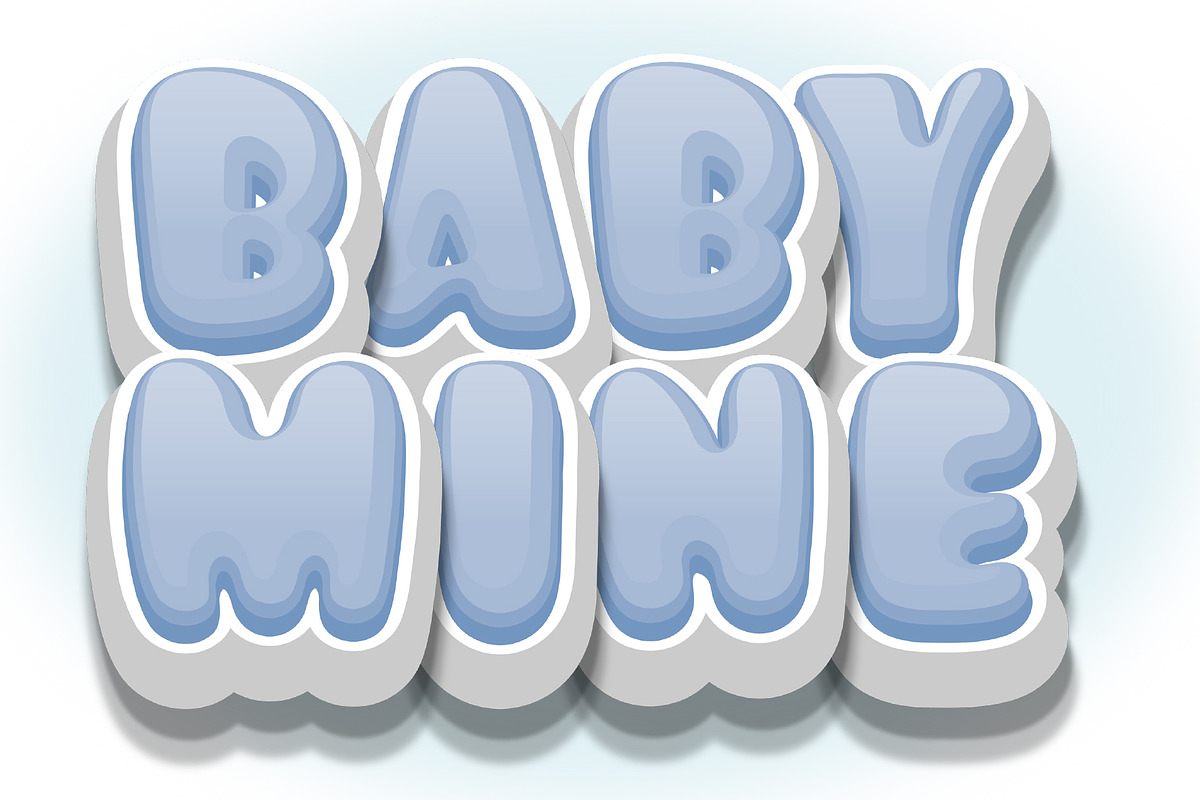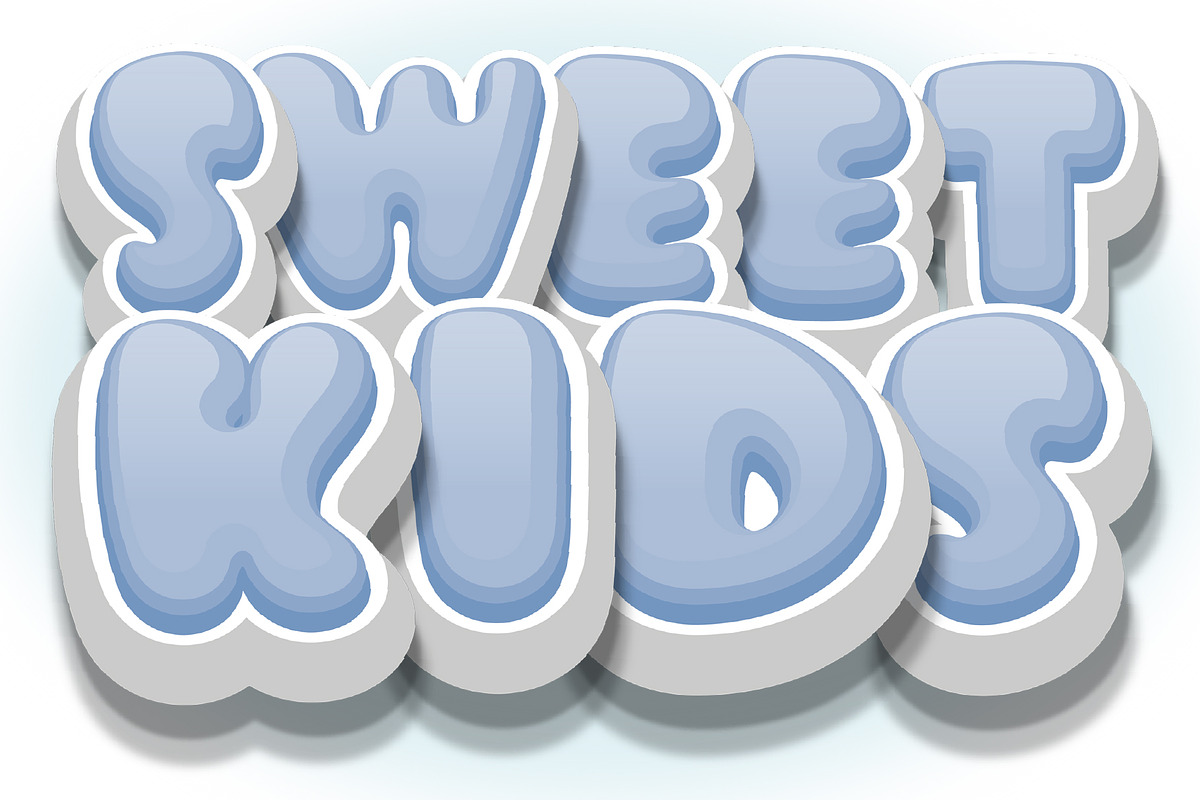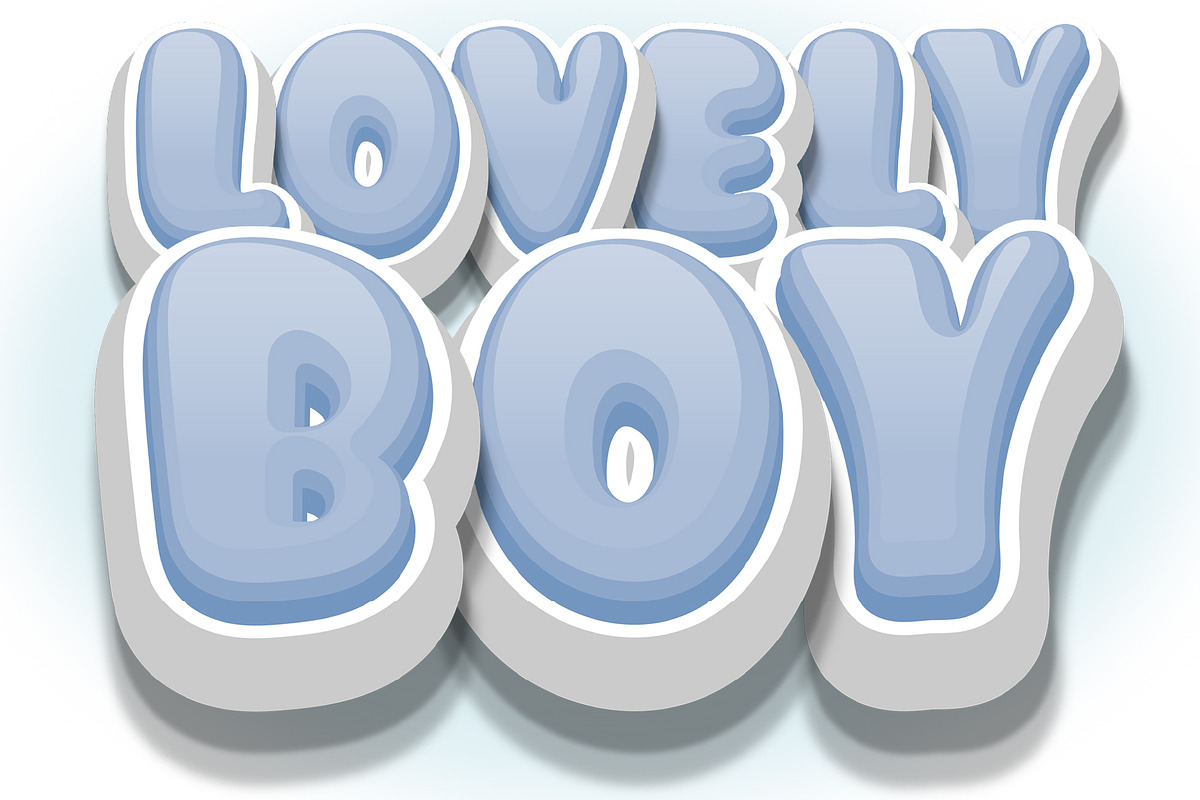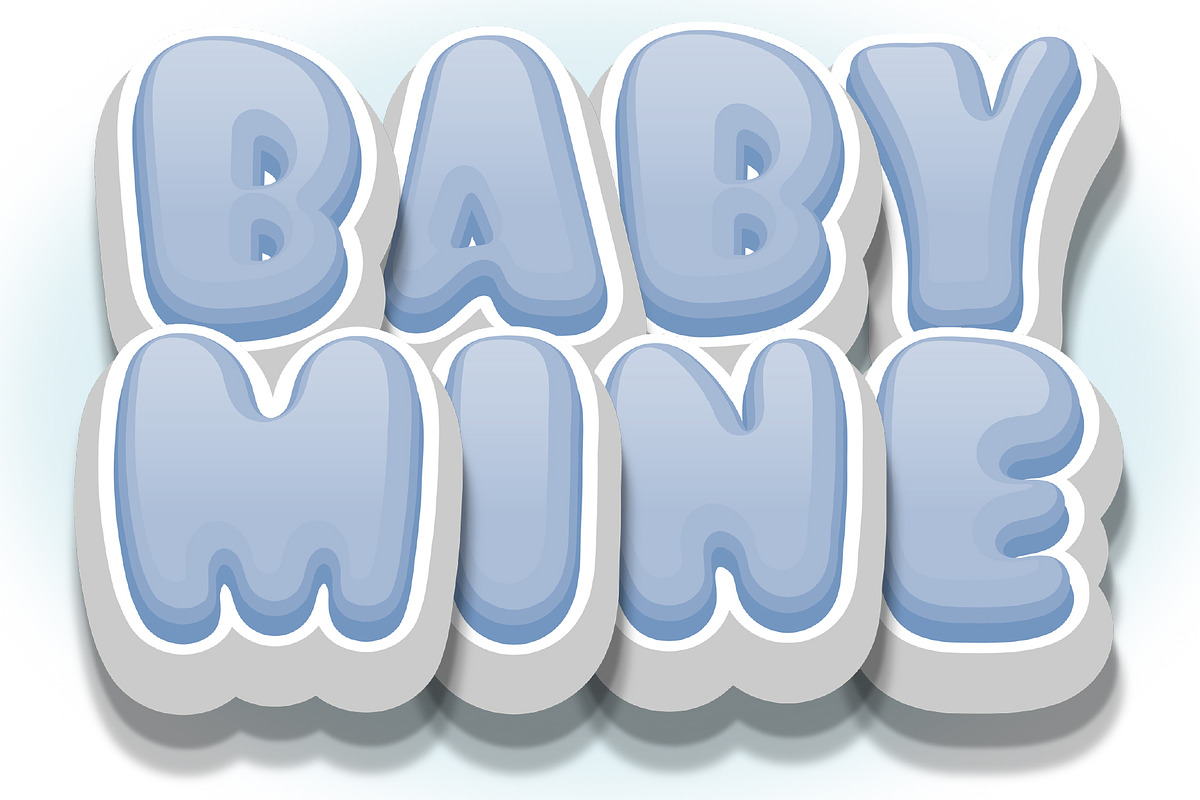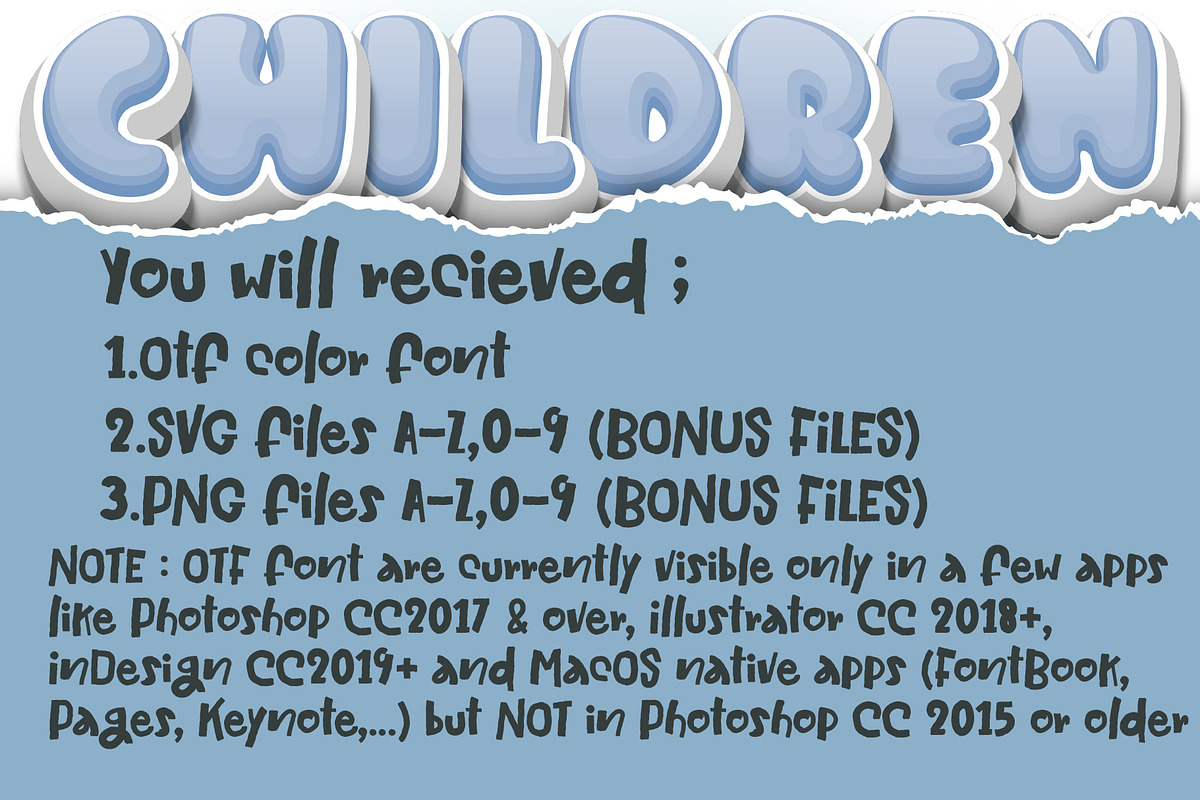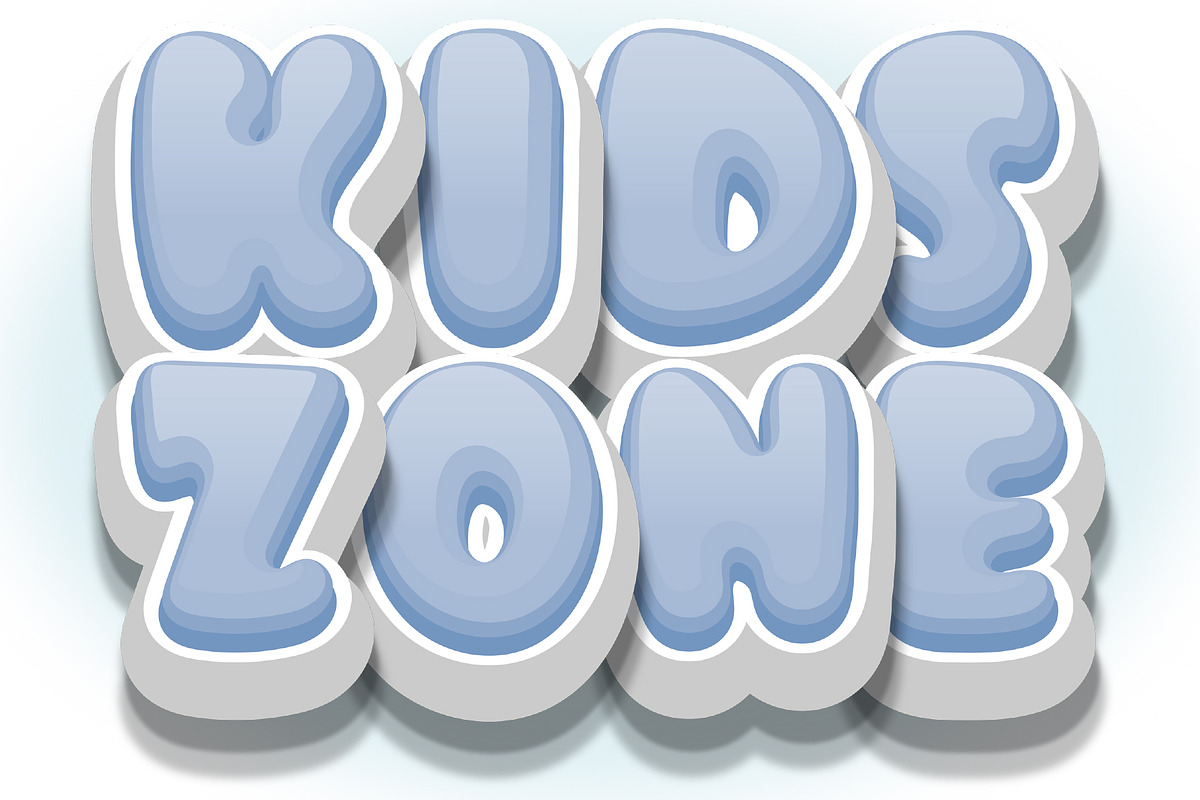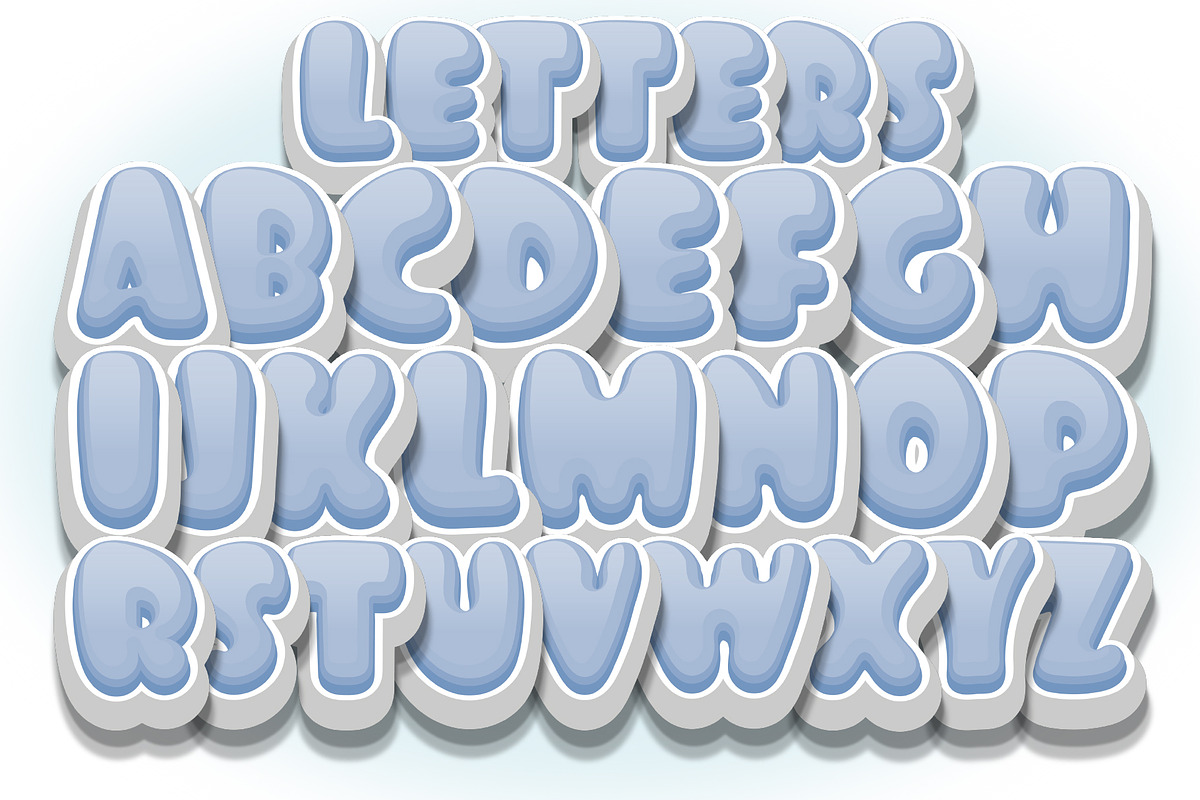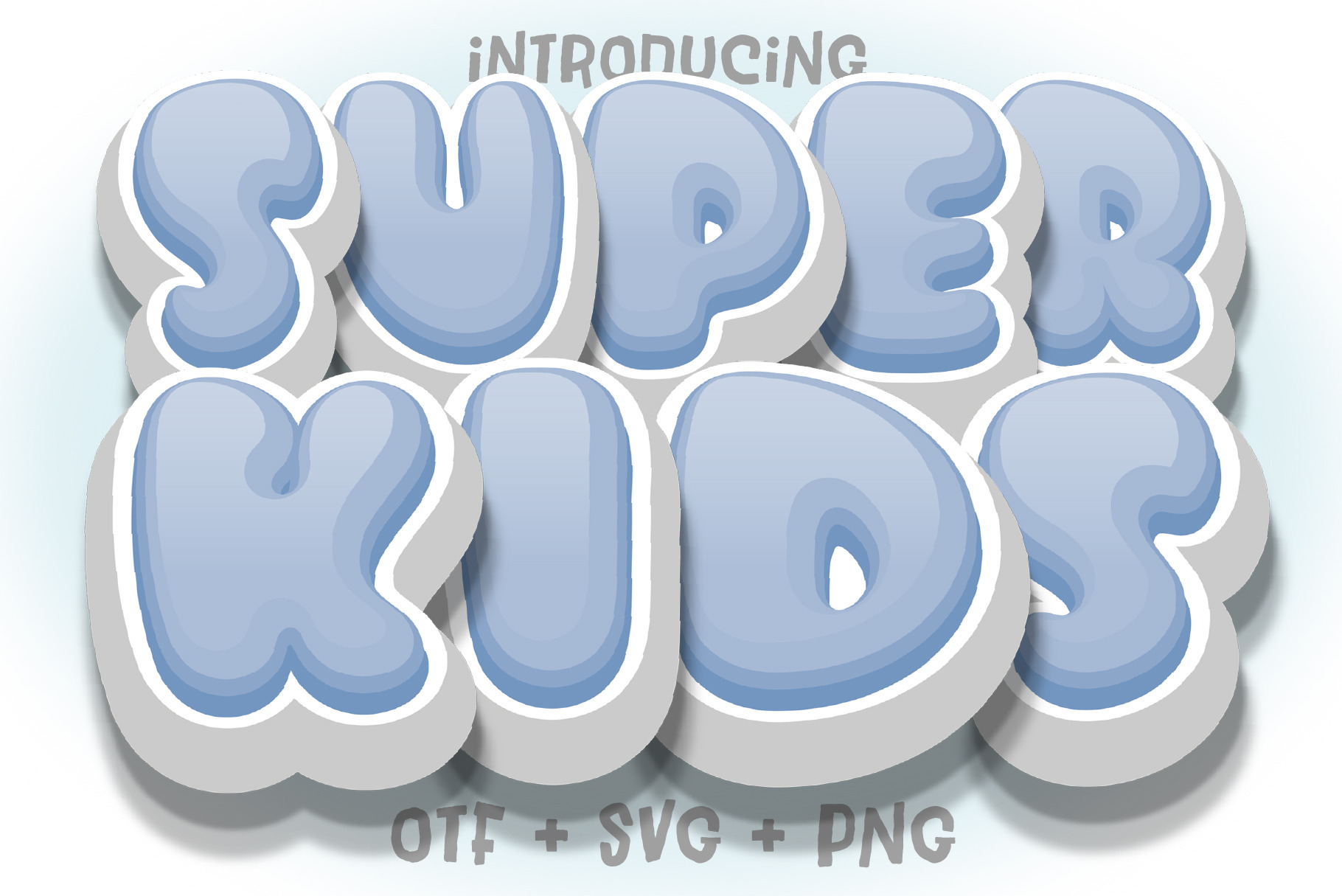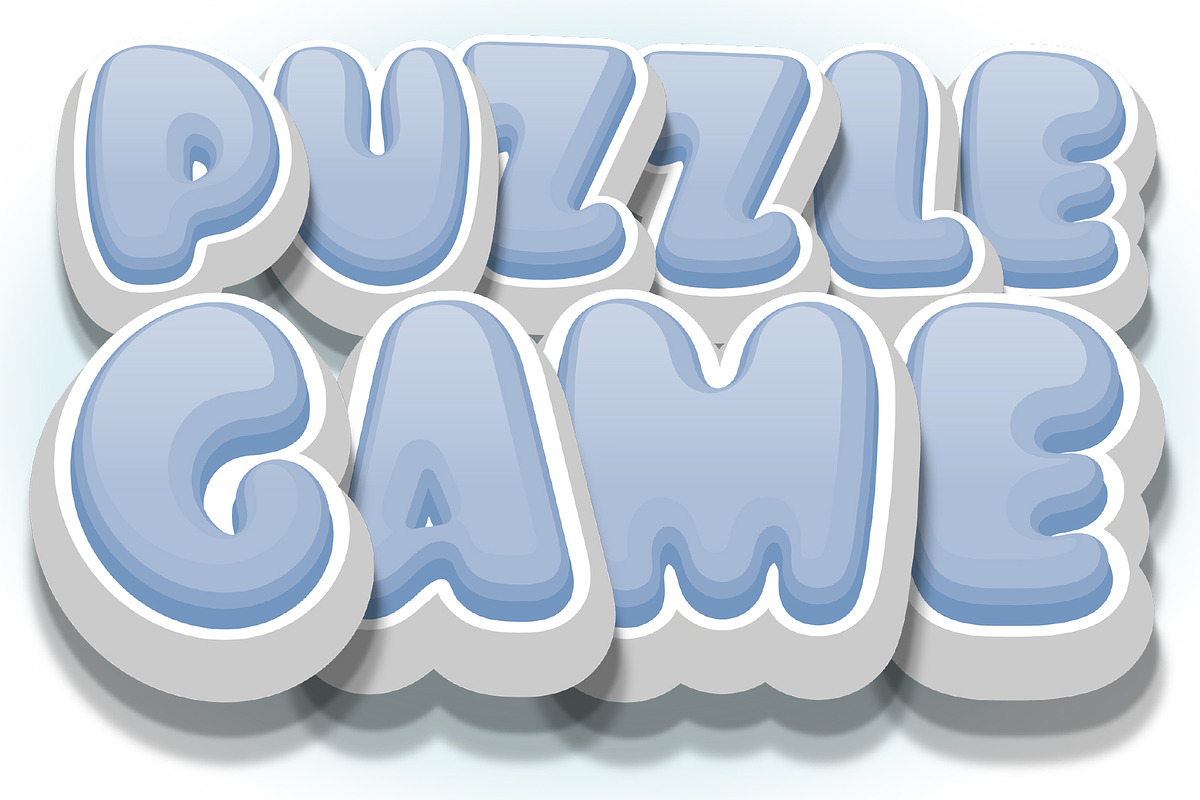
Super Kids - Bubble font - Blue
Super Kids - Bubble Blue font is a delightful and playful typeface that’s perfect for kids’ projects and children’s activities. This baby-cute bubble color font is designed to ignite the imaginations of young minds. Its whimsical, vibrant letters create a fun and friendly atmosphere, making it ideal for educational materials, storybooks, posters, and creative projects that captivate and inspire kids.